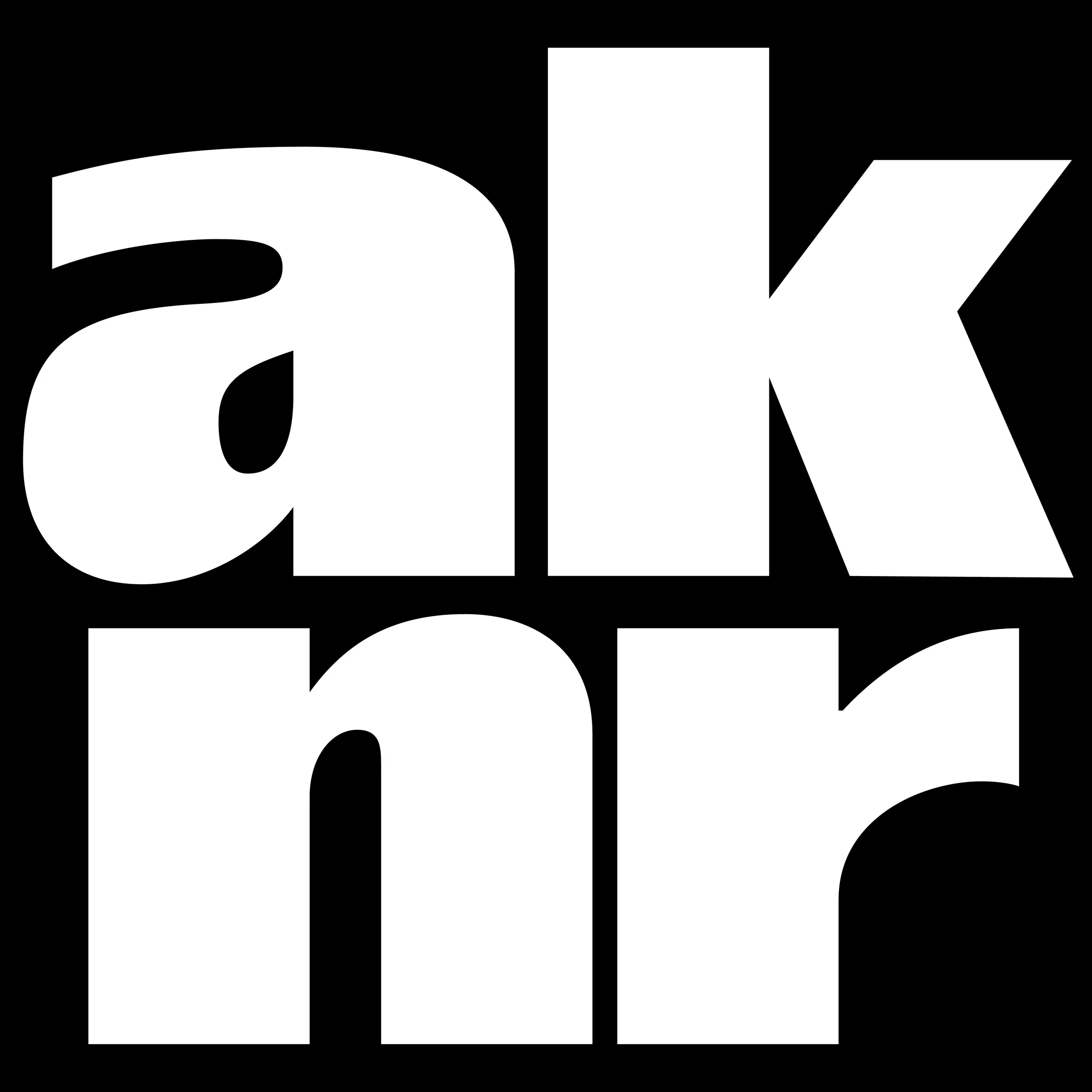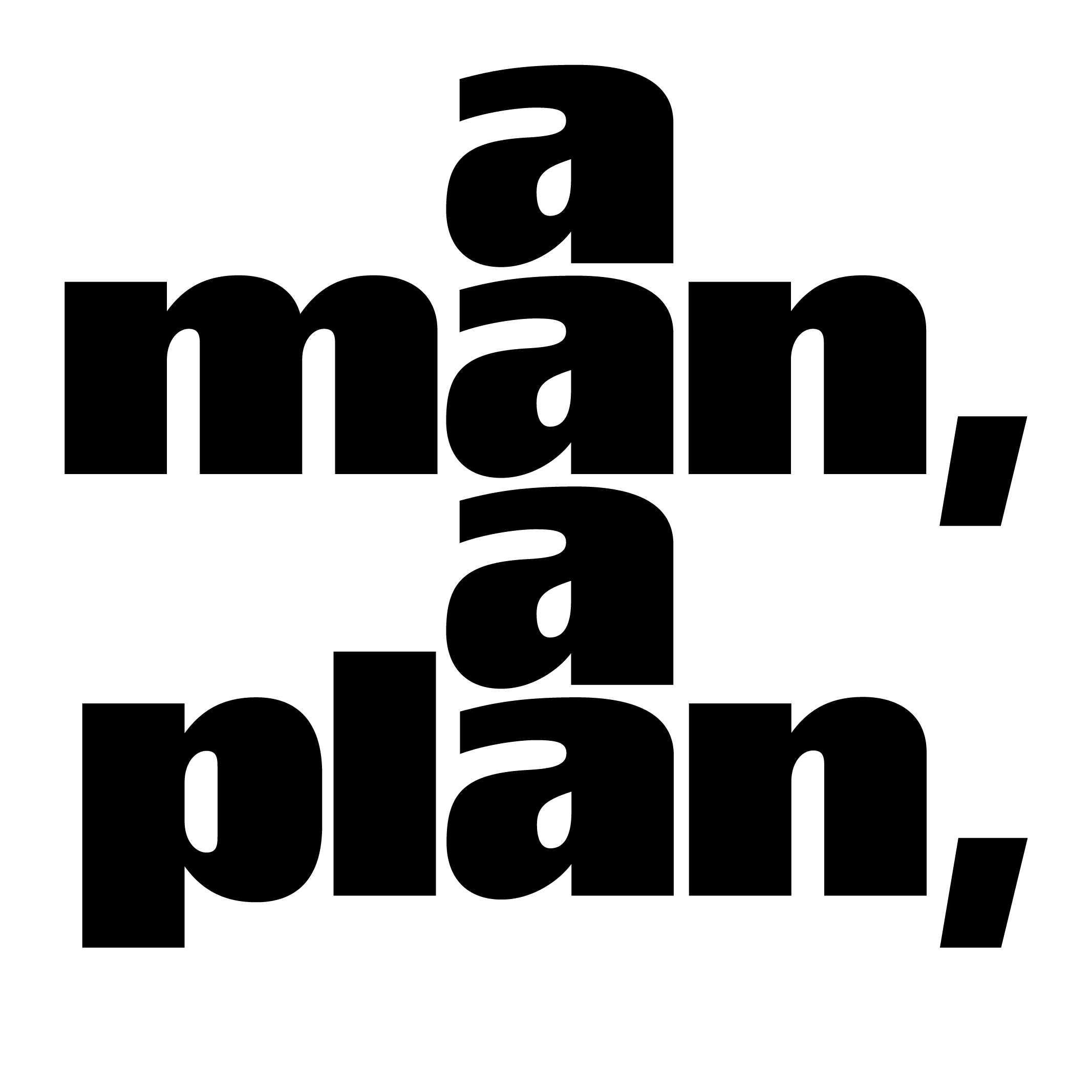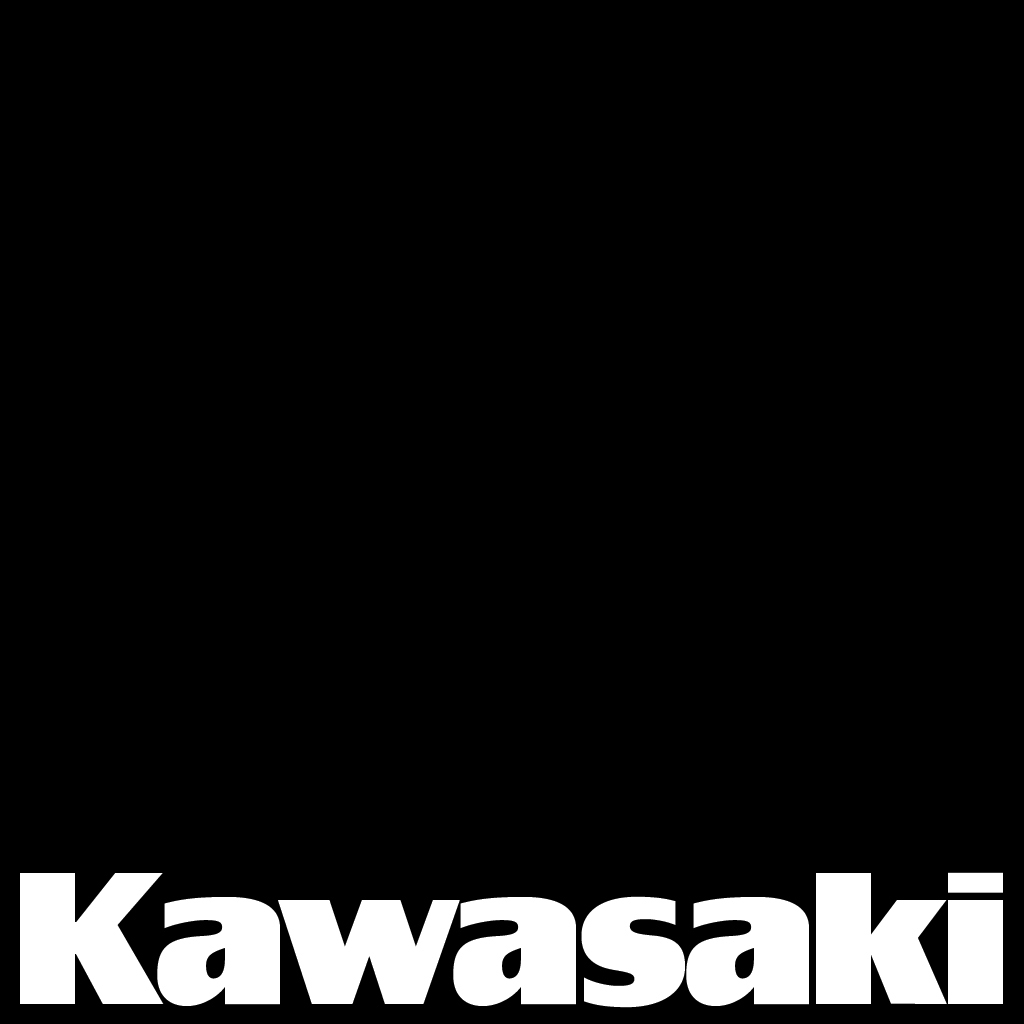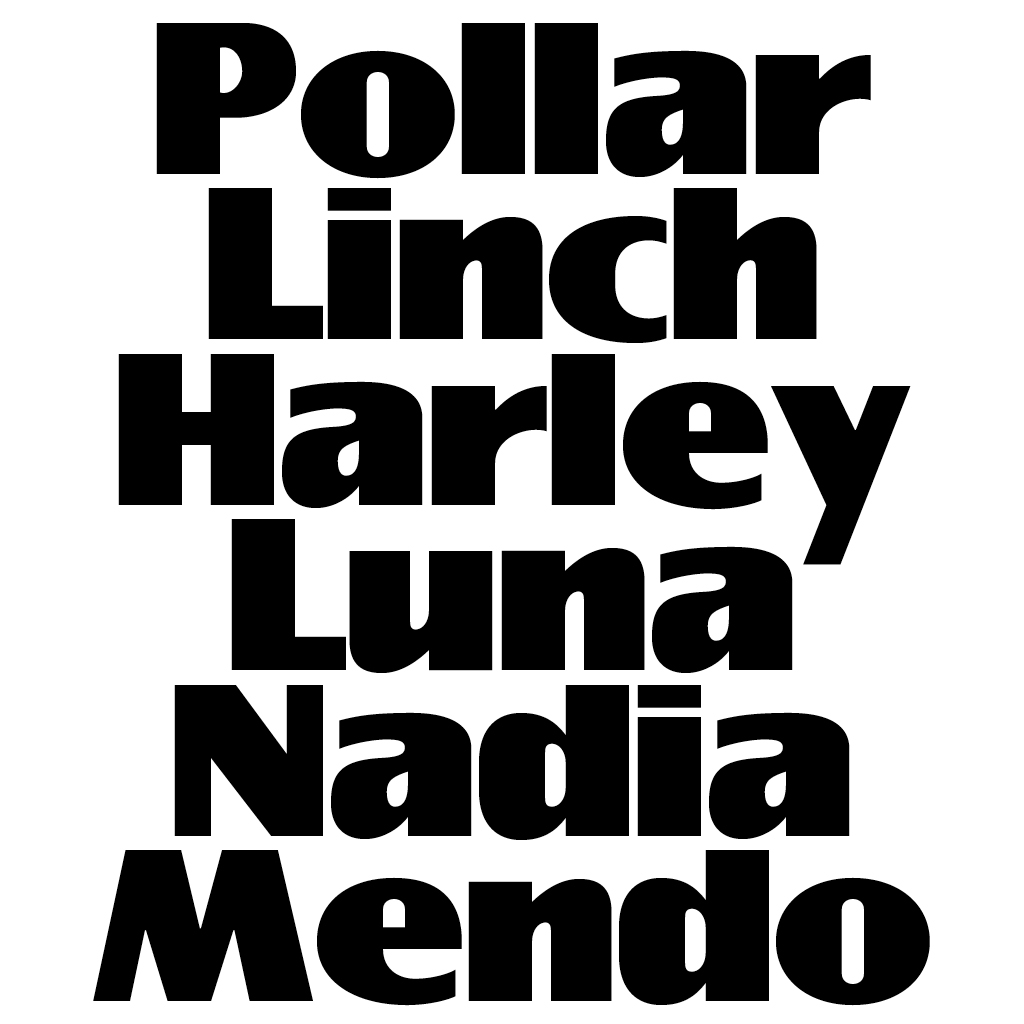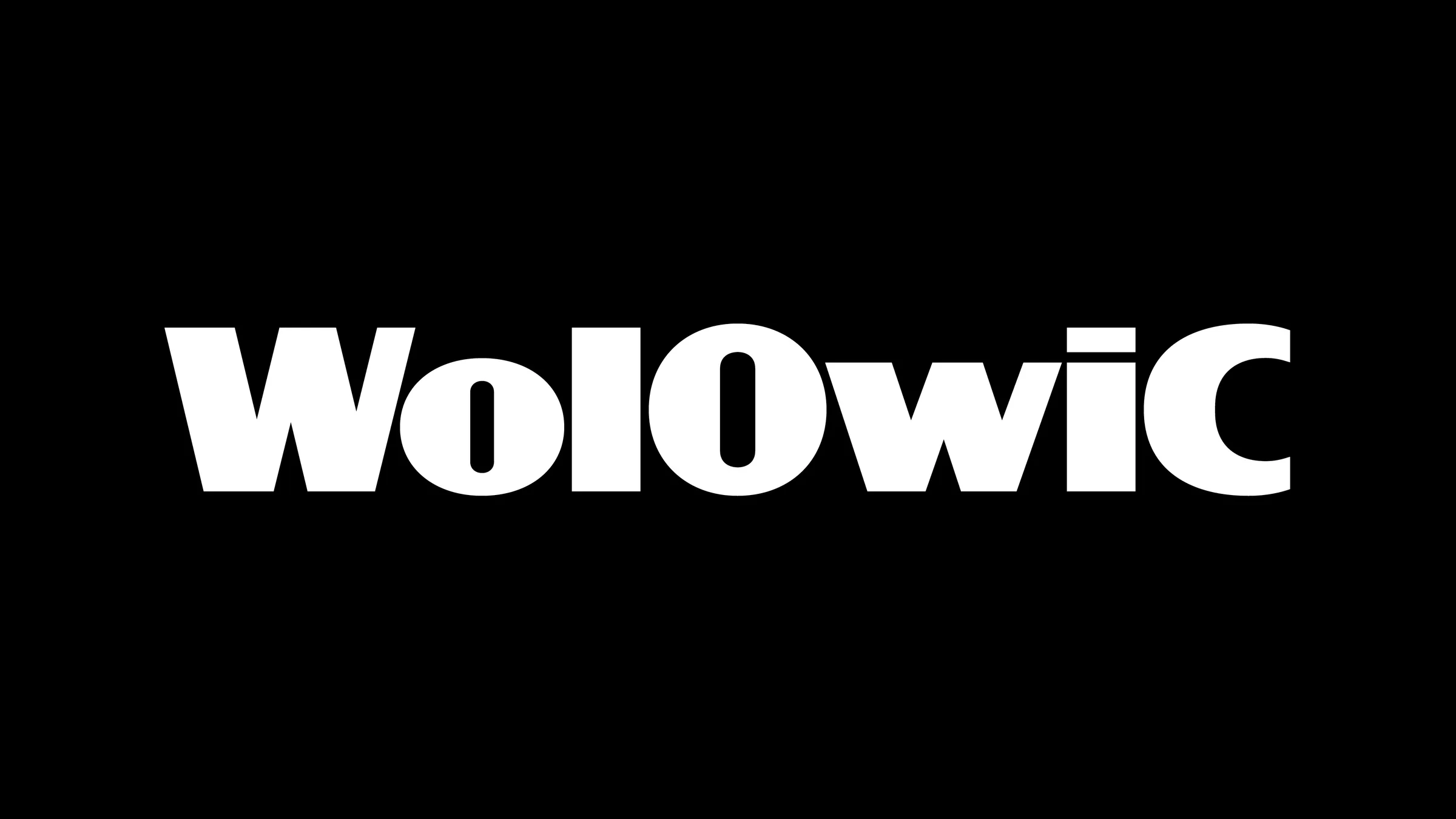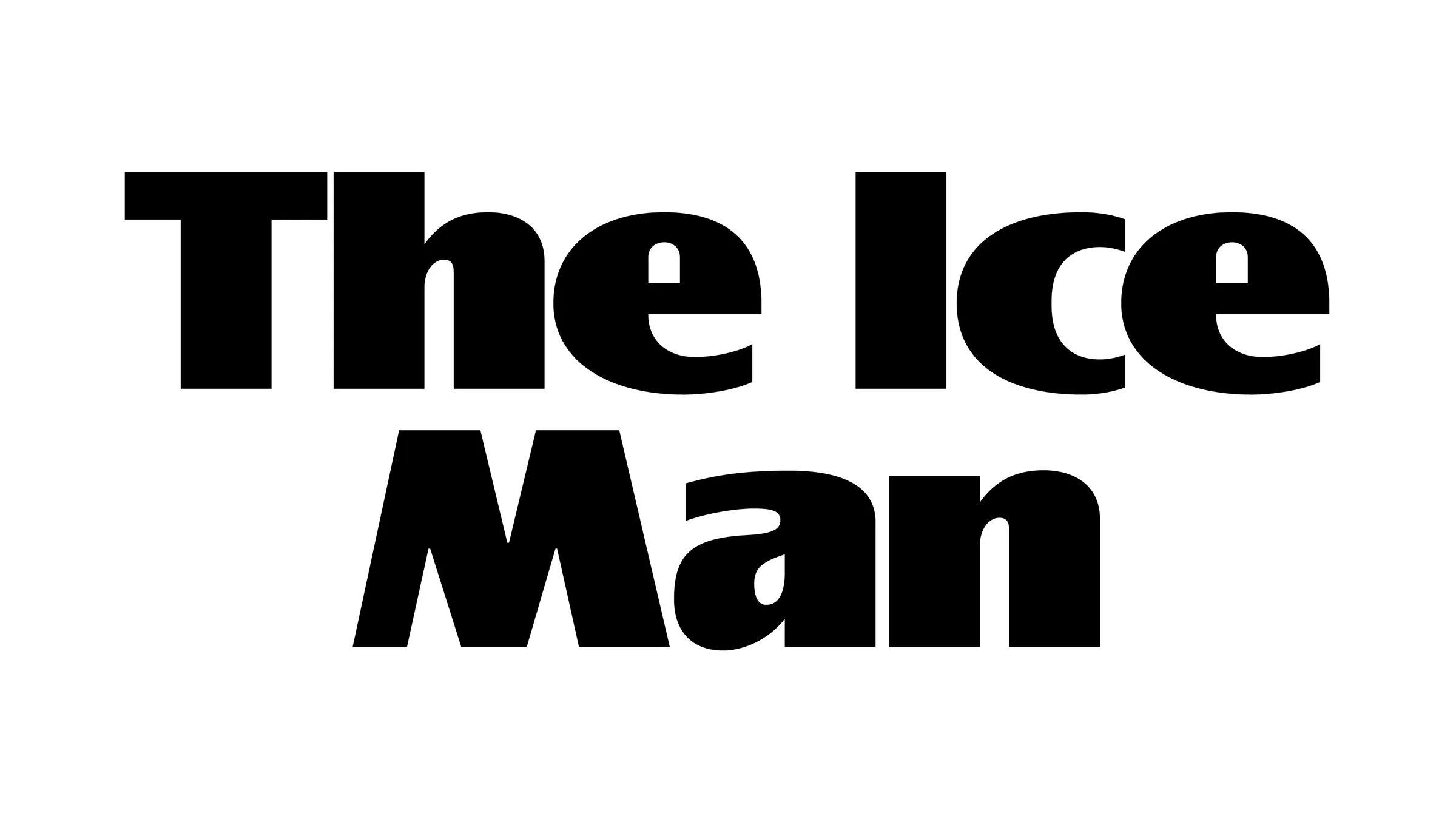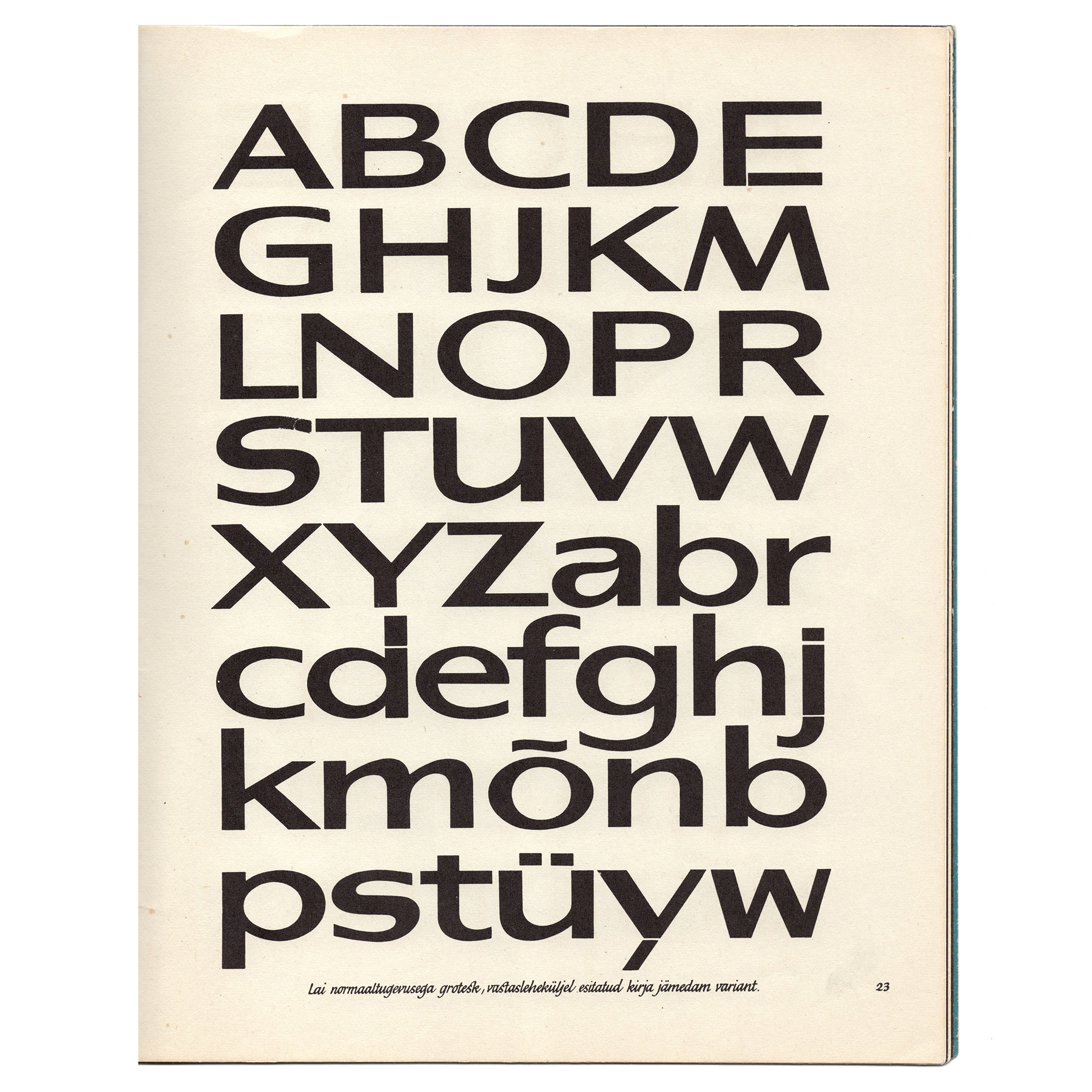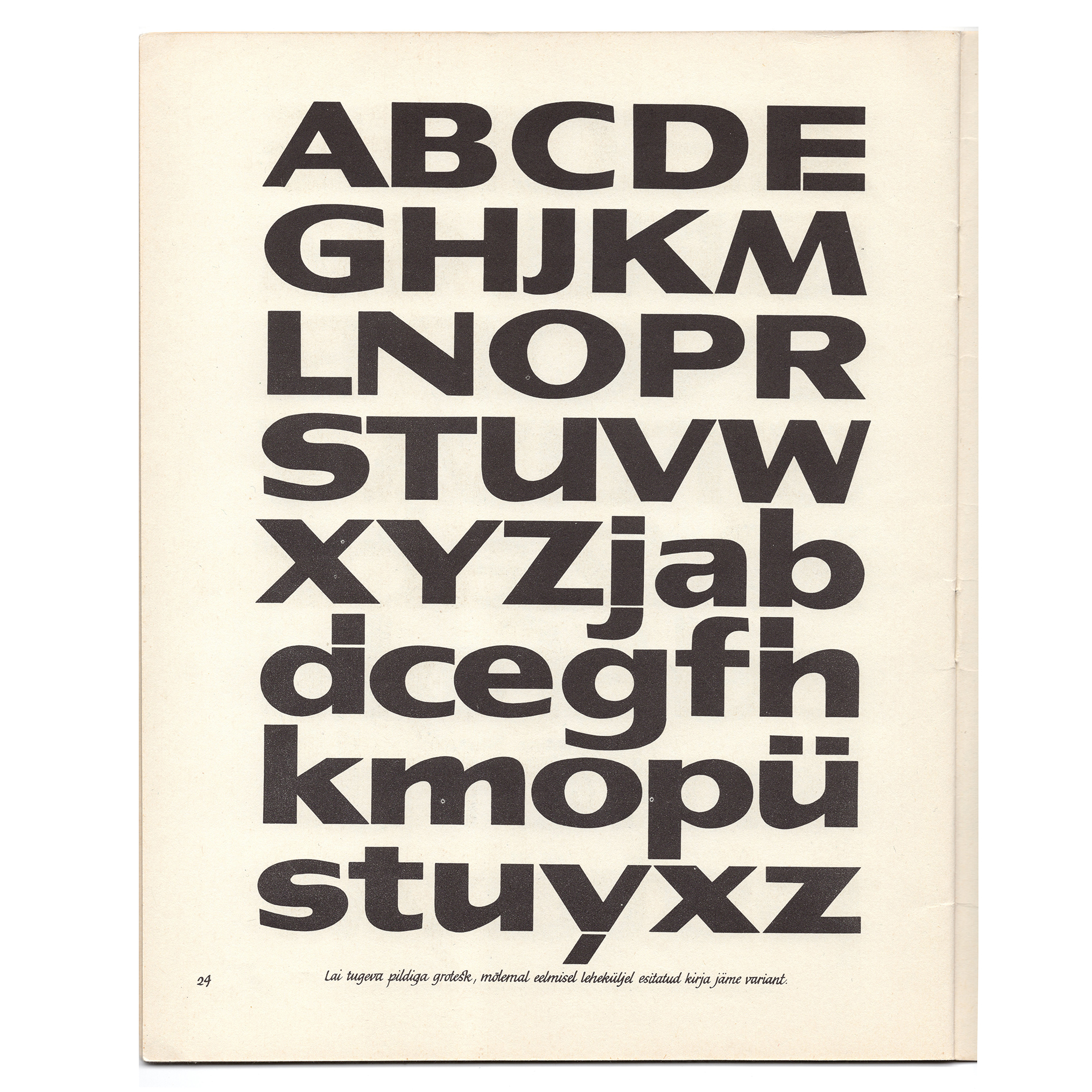
Polka is a re-interpretation of a character designed by Estonian typographer Villu Toots in 1972. It was found in a book he published called “Kirjakunsti abc” (meaning “Calligraphy abc ”) part of a collection of sereval type specimen. The font was described by the author like this: “Because of the contrast in the letters, it resembles an antique. Suitable for advertising and propaganda tools and for use in consumer graphics”. This alphabet is also very close to Eugene Nerdinger’s grotesque typeface and seems to be a proper revival of the German designer's font as Nerdinger version is older. Toots developed several weight for this font, taking liberties and accentuating certain elements of identity in relation to Nerdinger's versions. Polka is even bolder than Villu Toots's boldest version, keeping some irregularities within the weight distribution and proportions. The x-height is voluntary pretty big, that’s how I like to use it, with a very small leading and spacing to make the silhouette of the text very compact and bold.